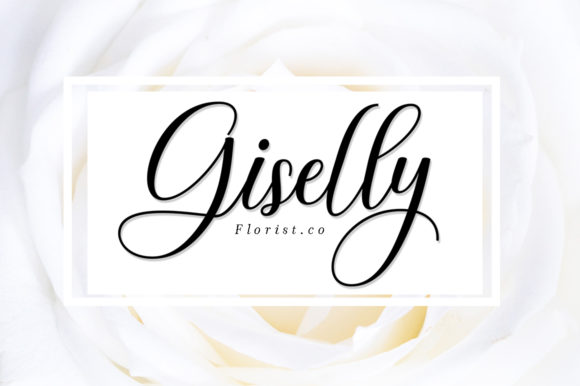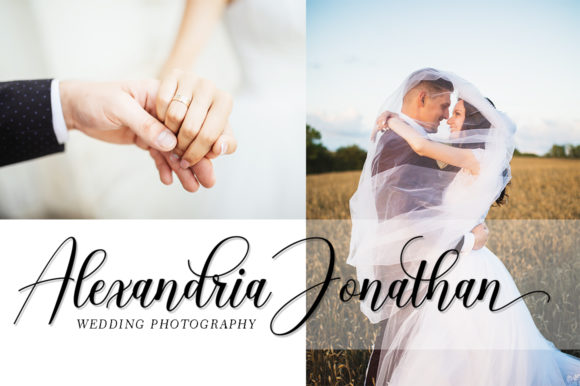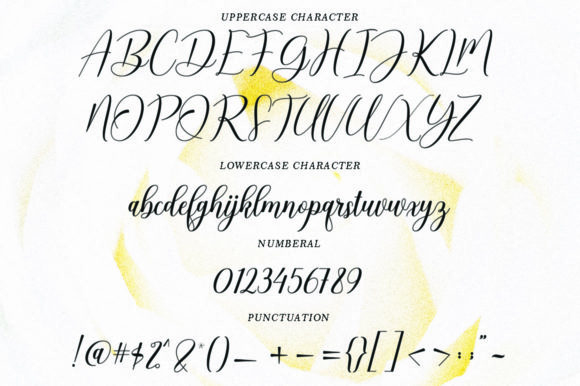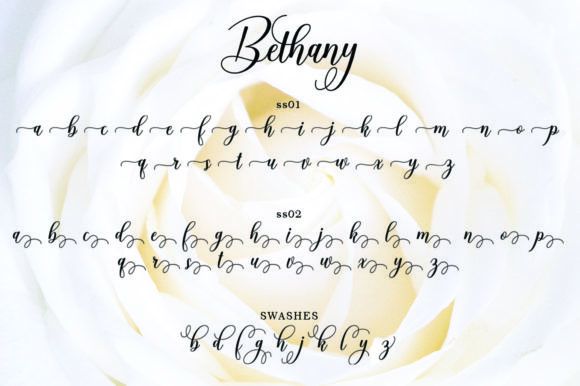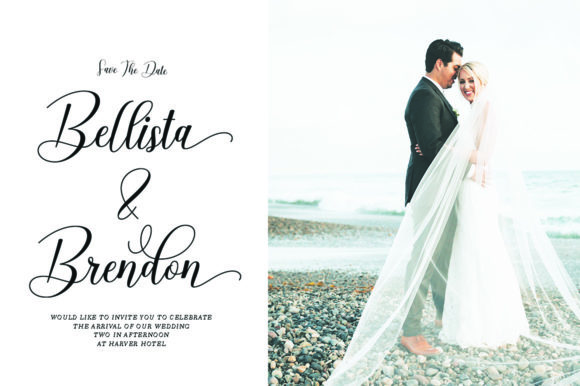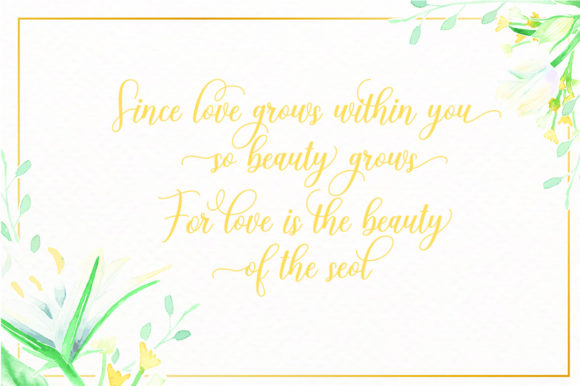
Bethany Script Font: Elevate Your Designs with Elegance and Sophistication
In the world of typography, a well-chosen font can make all the difference in transforming a design from ordinary to extraordinary. For designers and crafters seeking a script font that exudes elegance, sophistication, and charm, look no further than the Bethany Script Font. This versatile and enchanting font is perfect for a wide range of applications, from crafting and branding to digital designs, and is sure to add a magical touch to your next project.
The Essence of Bethany Script Font
Bethany Script Font is a masterfully crafted script font that strikes the perfect balance between elegance and charm. Its sophisticated appearance makes it an ideal choice for designs that require a touch of luxury, while its charming undertones ensure it remains approachable and engaging. Whether you’re working on a branding project, creating handmade crafts, or designing digital content, Bethany Script Font is guaranteed to elevate your work to new heights.
Key Features of Bethany Script Font
So, what sets Bethany Script Font apart from other script fonts on the market? Here are just a few of its key features:
• Alternate Glyphs and Ligatures: This font features a wealth of special features, including alternate glyphs and ligatures, allowing you to add an extra layer of creativity and sophistication to your designs.
• Versatility: From crafting and journaling to branding and digital designs, Bethany Script Font is incredibly versatile and can be used in a wide range of applications.
Applications of Bethany Script Font
So, how can you use Bethany Script Font in your designs? Here are just a few ideas to get you started:
• Branding: Use Bethany Script Font to create stunning logos, business cards, and marketing materials that exude elegance and sophistication.
• Crafting: Add a touch of magic to your handmade crafts, such as journals, planners, and gift tags, with this beautiful script font.
• Digital Designs: Use Bethany Script Font to create gorgeous digital art, social media graphics, and website headers that are sure to capture your audience’s attention.
Tips for Using Bethany Script Font
To get the most out of Bethany Script Font, here are a few tips to keep in mind:
• Experiment with Glyphs and Swashes: Don’t be afraid to try out different glyphs and swashes to add an extra layer of creativity to your designs.
• Mix and Match with Other Fonts: Combine Bethany Script Font with other fonts to create a unique and visually appealing design.
• Play with Color and Texture: Add an extra layer of depth and interest to your designs by experimenting with different colors and textures.